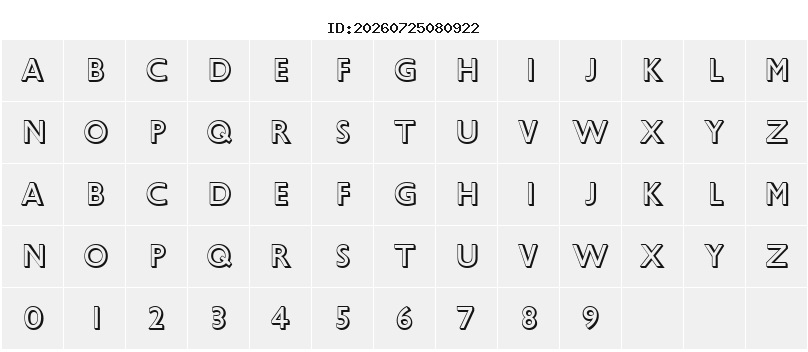
Gill Sans CE MT Shadow Preview
• Font Name: Gill Sans CE MT Shadow
• Font Style: Normalny
• Font ID: Monotype - Gill Sans MT Shadow
• Full Font Name: Gill Sans CE MT Shadow
• PostScript Name: GillSansMTShadow
About Gill Sans CE MT Shadow.ttf
Gill Sans CE MT Shadow.ttf is a modern, elegant sans-serif font designed for ultimate readability and visual harmony. Perfect for branding, headlines, web design, and print materials.